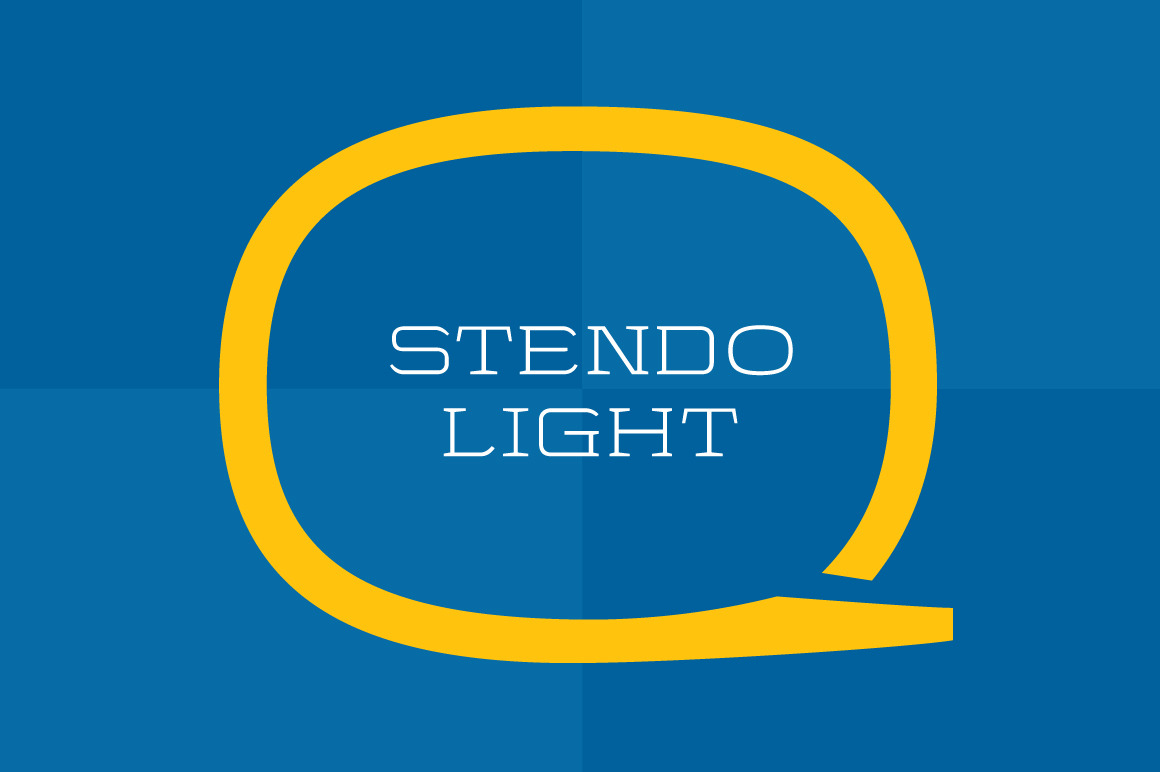
Stendo Extended Light - Wide Font
Now with support of American, European, and many other languages!!
NEW! A light neo retro wide font that doesn't lock you down to western style and is a proud member of the ever-growing Stendo Family (http://crtv.mk/o0Wr). Works remarkably well even at small print and beautifully at huge sizes.
Custom kerned pairs makes logo text and headlines fast and easy to build.
This font pairs well with simple (non-high-contrasting width) script fonts and condensed sans serifs.